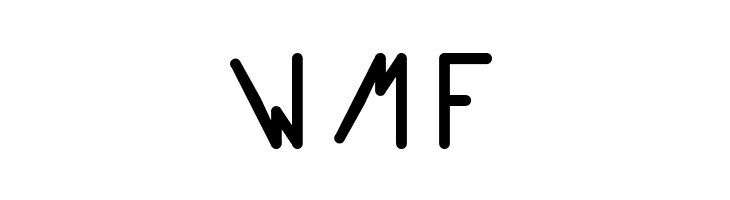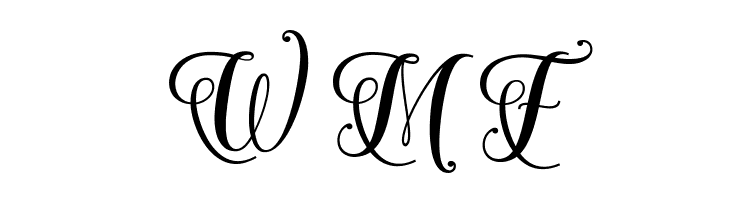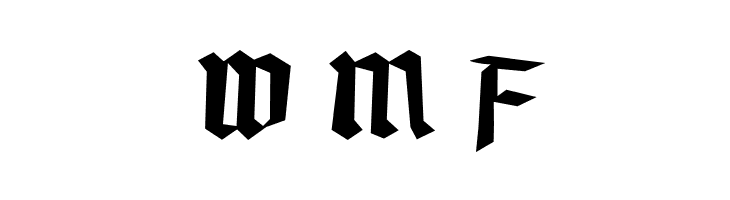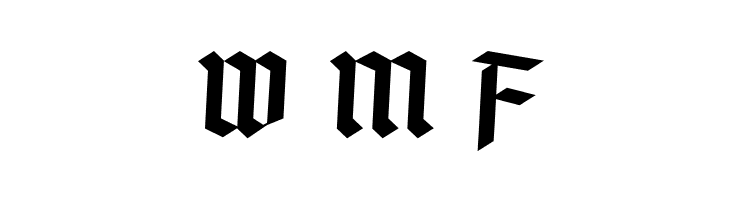
A playful, hand-drawn font with bold, rounded strokes and a whimsical style.
A bold, angular Blackletter font with high contrast and ornate detailing.
A bold, angular blackletter font with a modern twist.
A collection of abstract and geometric symbols with a mystical and historical flair.
) A modern sans-serif font with clean lines and balanced proportions.
A geometric, angular font with a modern and technical style.
A modern, geometric font with thin lines and generous spacing.
A dynamic and expressive handwritten font with fluid, cursive strokes.
An elegant script font with ornate swirls and flowing, interconnected letters.